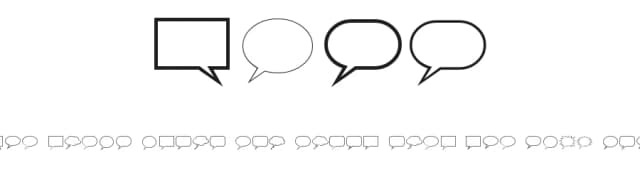
About Metroliner Font
Metroliner is a decorative font designed by Jonathan Macagba. It includes 73 glyphs, TTF (TrueType) format, and 104 languages. Metroliner is free to download; check the license details on this page before commercial use. Decorative fonts like Metroliner work best for logos, posters, packaging, and standout headlines.
Metroliner Font is a decorative font that shines as a display or heading face. Pair it with a clean sans-serif or serif font for body text β the contrast creates a clear hierarchy while the two styles stay balanced and easy to read.
Metroliner Font
Metroliner Font is a decorative typeface by Jonathan Macagba, ideal for logos, invitations, branding, and creative projects.